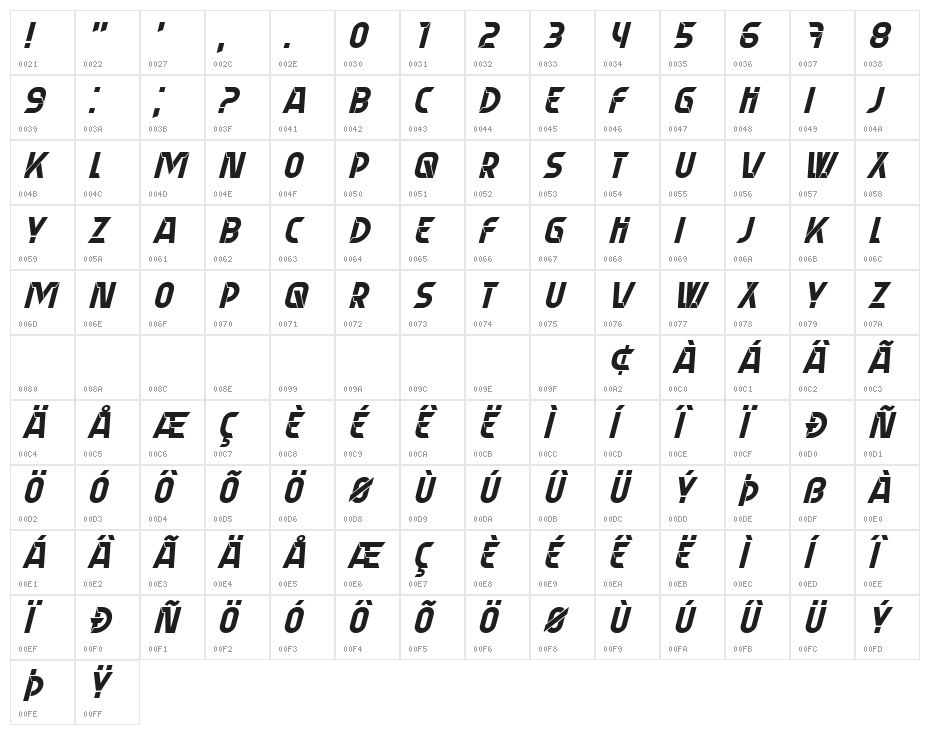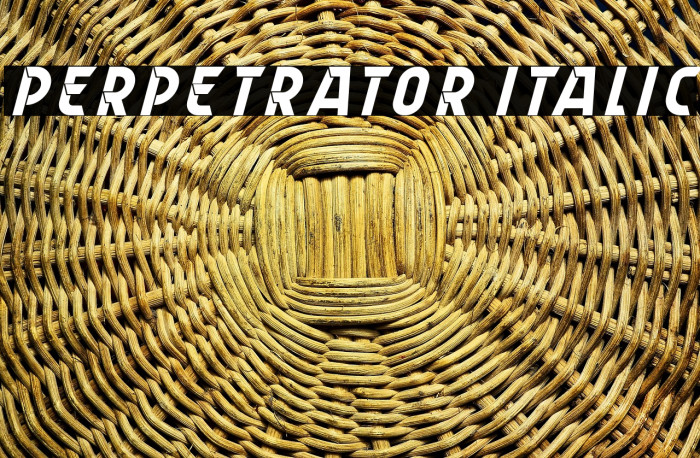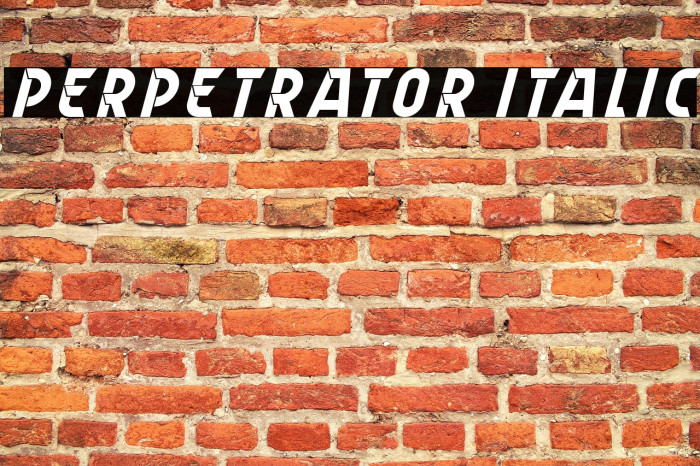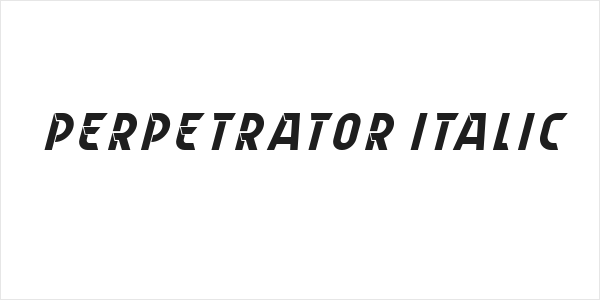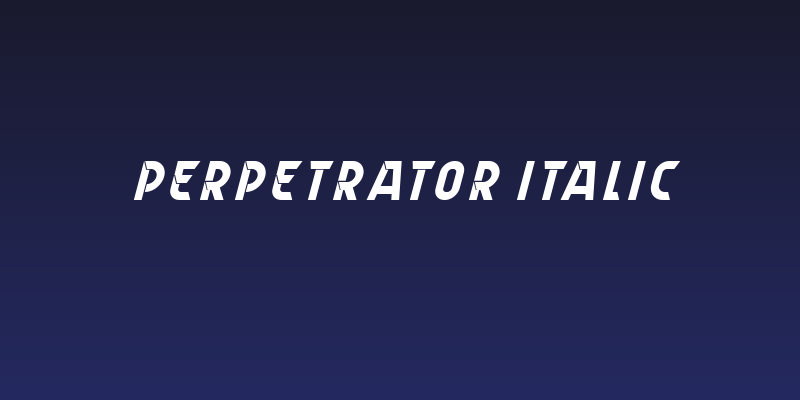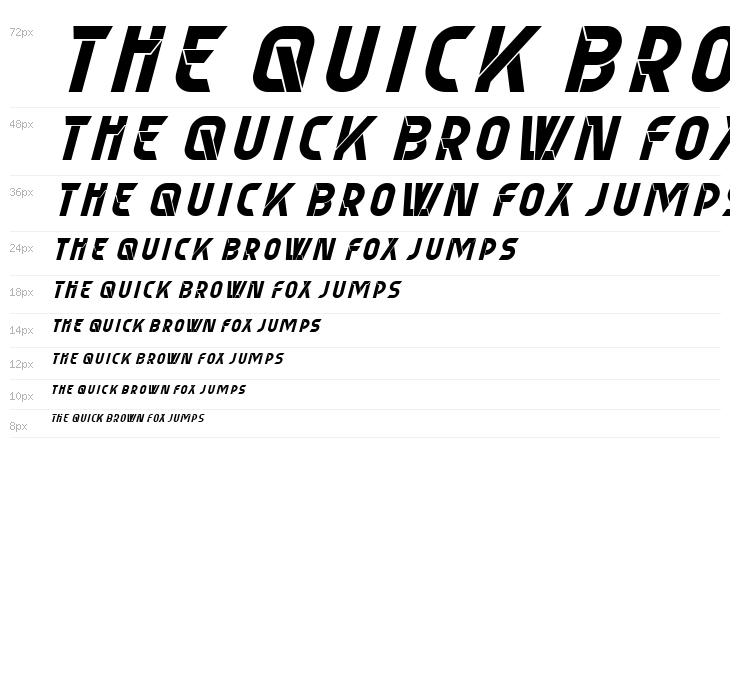
Perpetrator Italic Font
Perpetrator Italic Description
This font features a bold, italicized style with a modern, futuristic flair. The characters are sharply angled, giving a sense of motion and speed. Each letter and number is designed with a unique cut or slice through the middle, adding a dynamic and edgy appearance. The uppercase and lowercase letters maintain a consistent style, while the numbers and special characters follow suit, ensuring uniformity across all glyphs. The font's design is highly distinctive, making it ideal for projects that require a strong visual impact.
| Proposed Projects | Ideal for branding, sports team logos, video game titles, and futuristic-themed designs. |